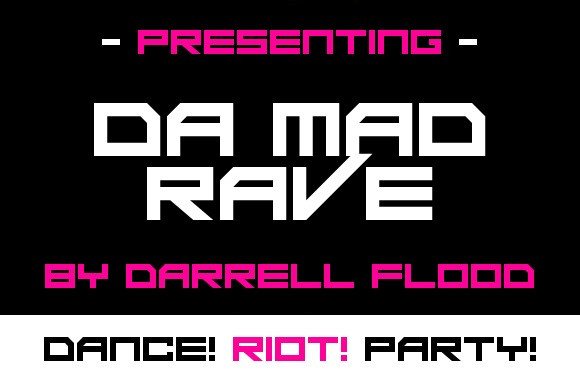
Da Mad Rave Font
Da Mad Rave Font is a high-voltage techno display typeface built for EDM posters, nightclub branding, and loud digital headlines. Geometric, octagonal forms collide with razor angled cuts, squared bowls, and aggressive diagonals for a kinetic, cyber feel. The compact, all-caps alphabet carries thick horizontals and tight spacing for instant impact on screens and stage visuals, while clean counters keep the font legible at small sizes. Use it for logos, festival flyers, gaming titles, and motion graphics; layer neon gradients, strokes, or stencil breaks for extra edge. If you need a bold, modern headline font that screams nightlife energy, this sci-fi typeface drops right on the beat.